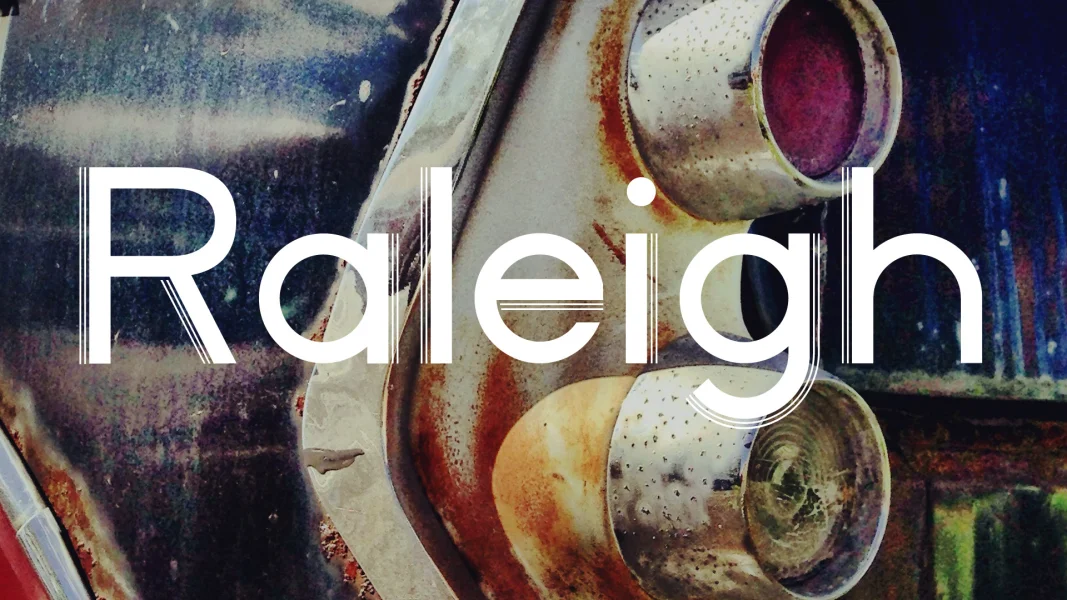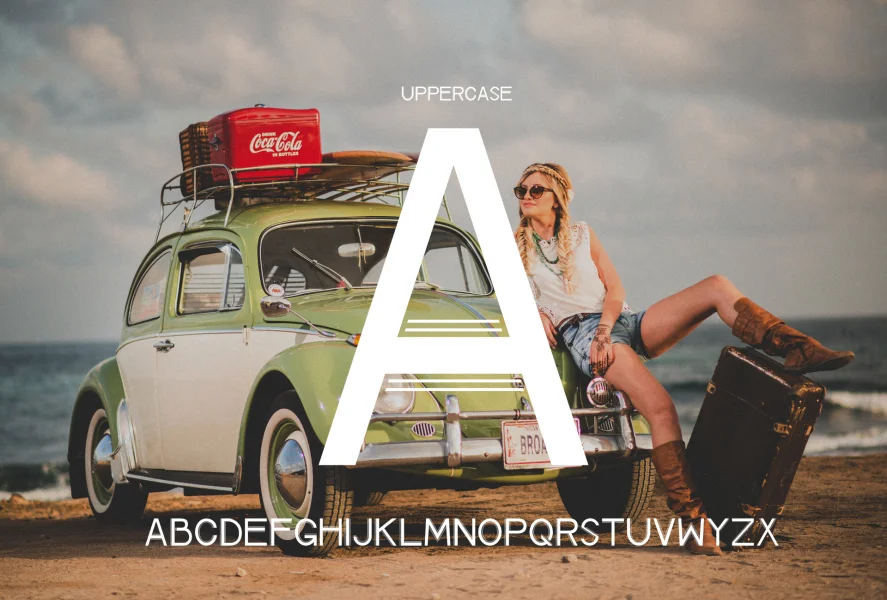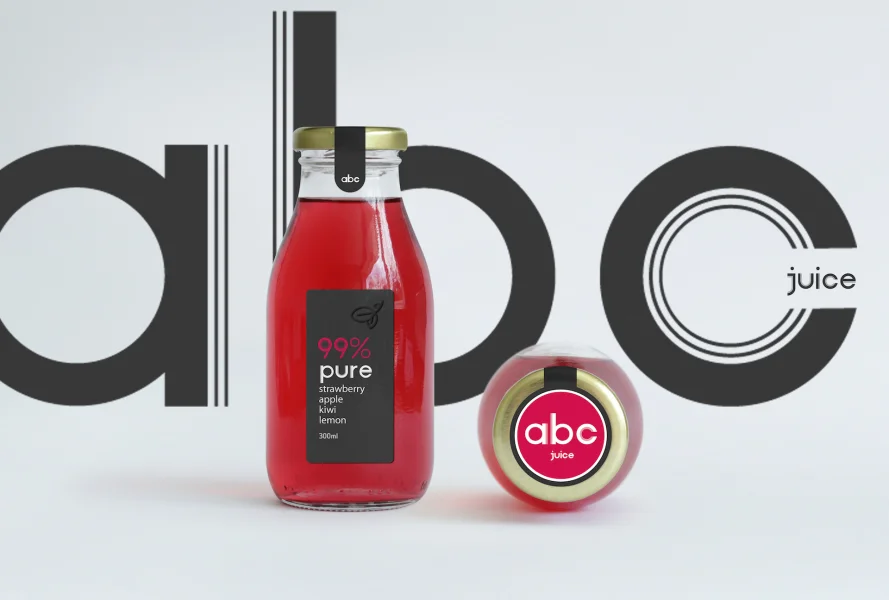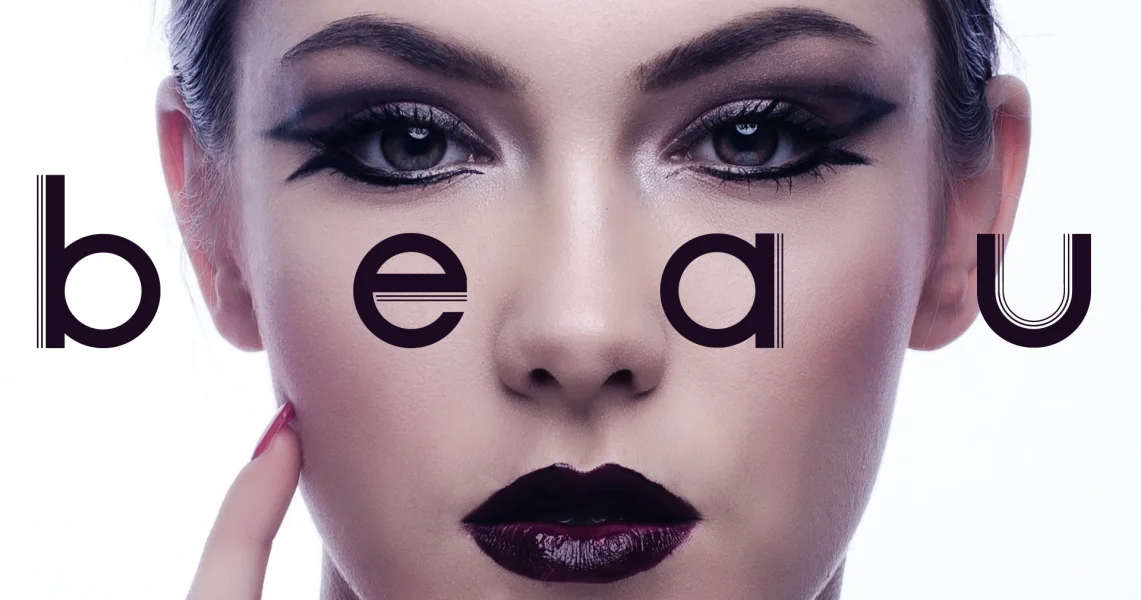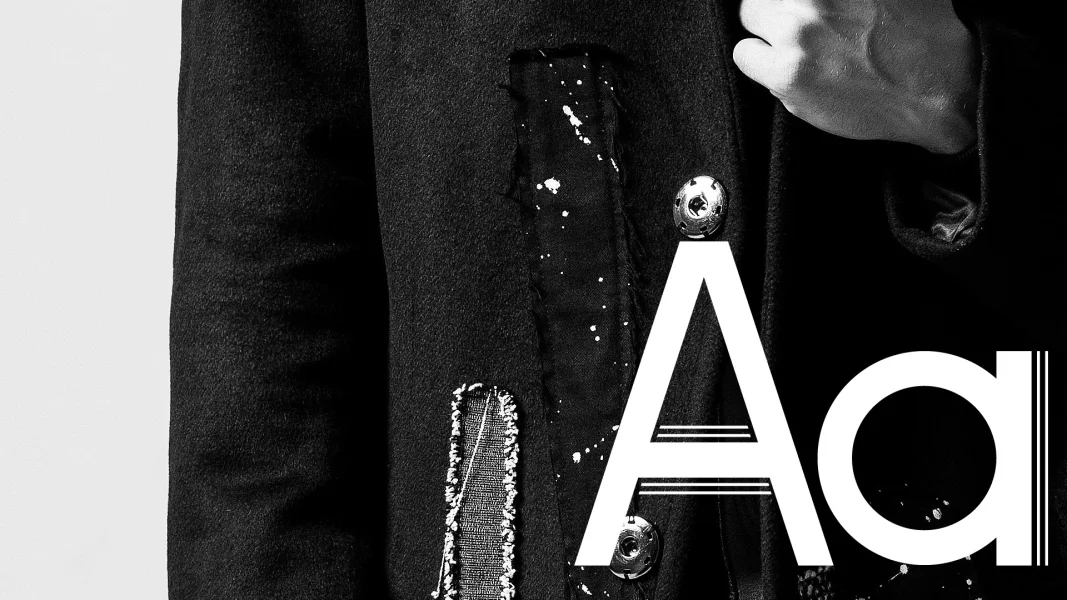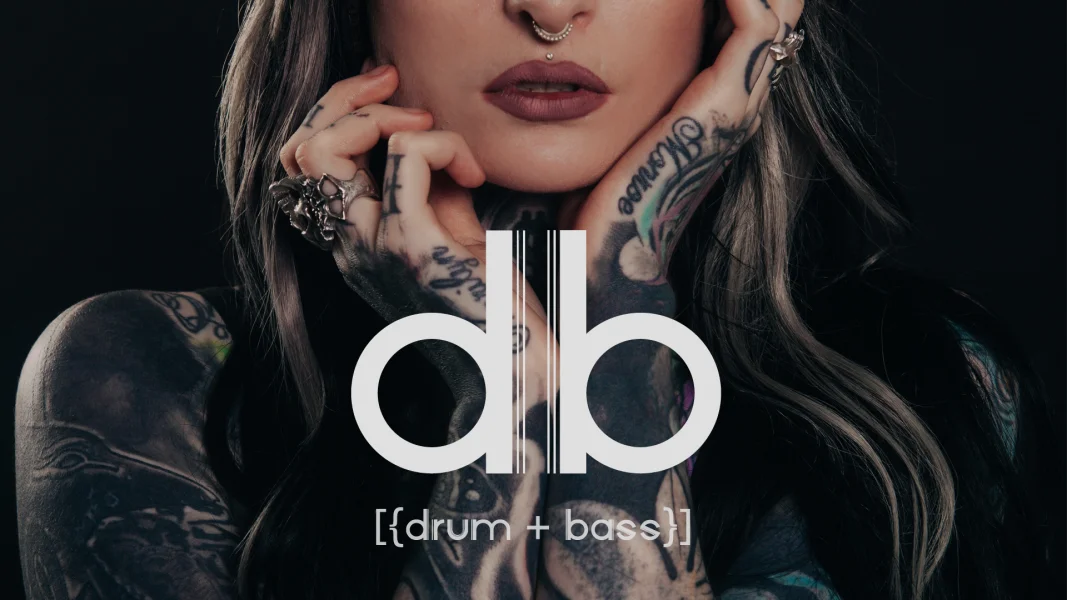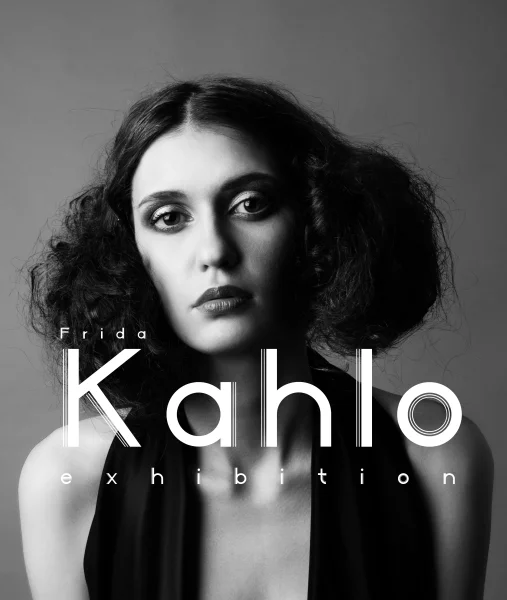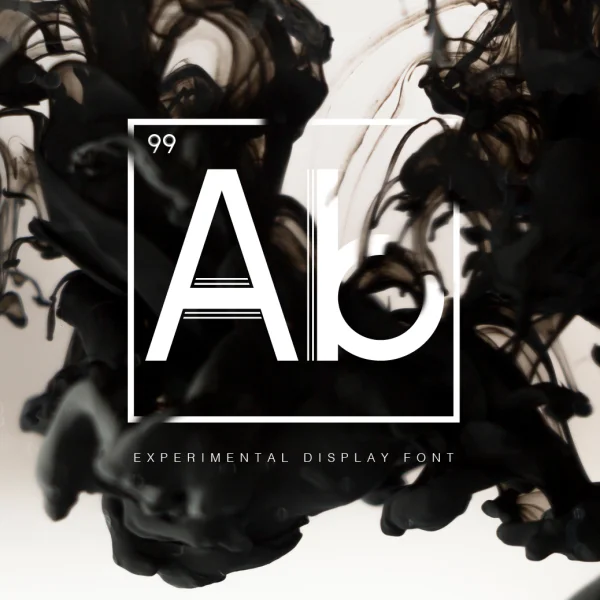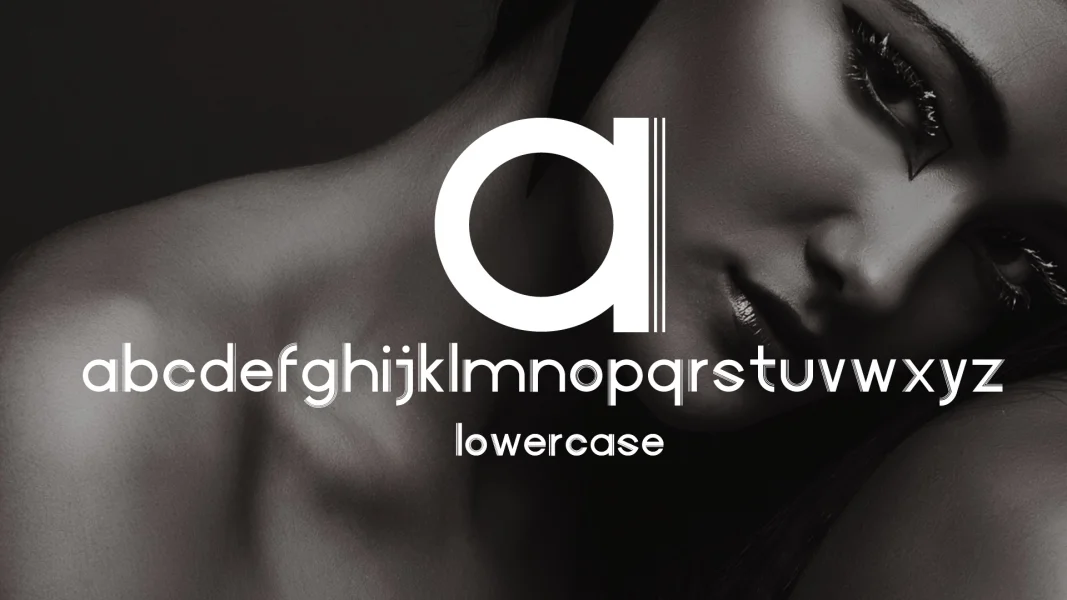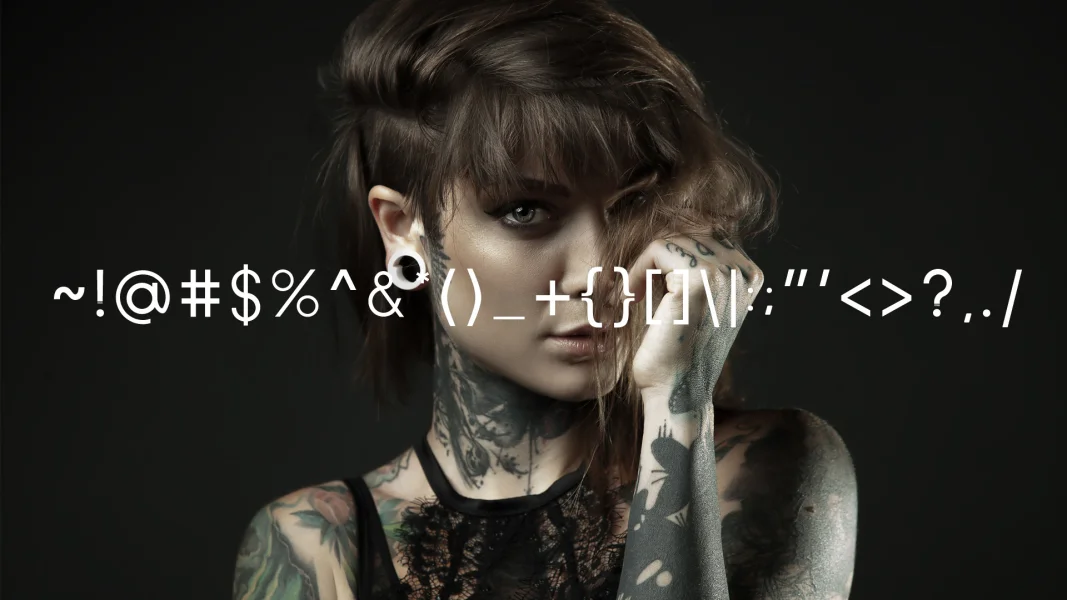
Avenue X is influenced by Art-Deco and the font takes inspiration from urban design and planning, such as lanes, avenues and highways. Each character is represented with a main "avenue" and a bike /and/ pedestrian lane, which is often seen in urban environments.